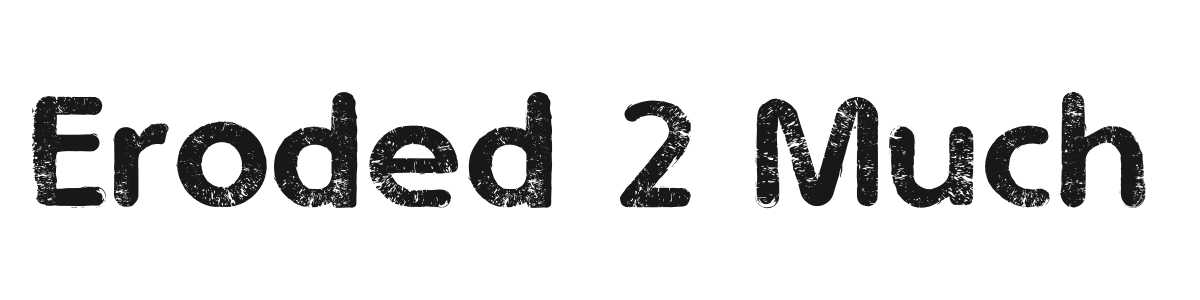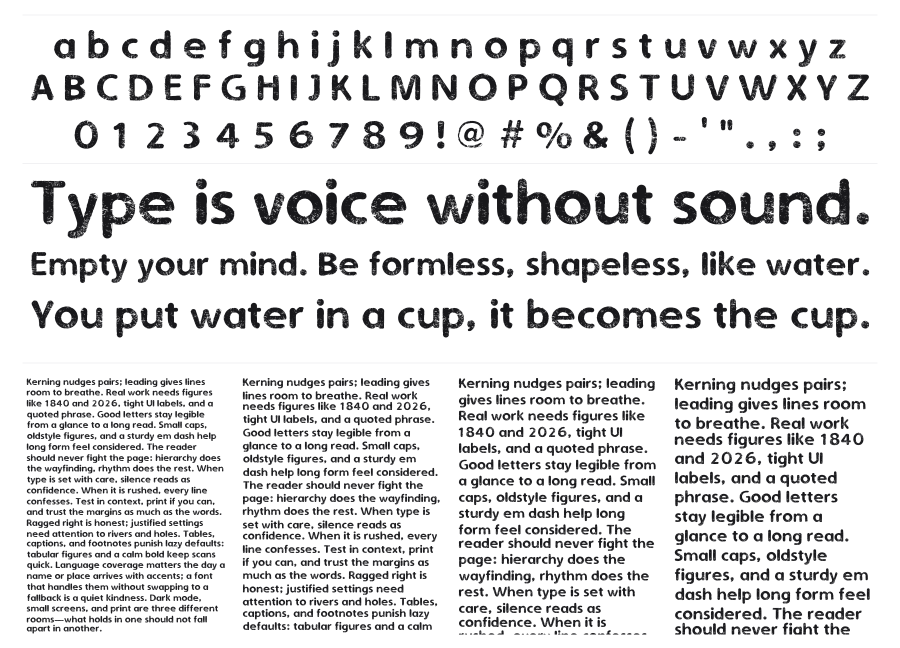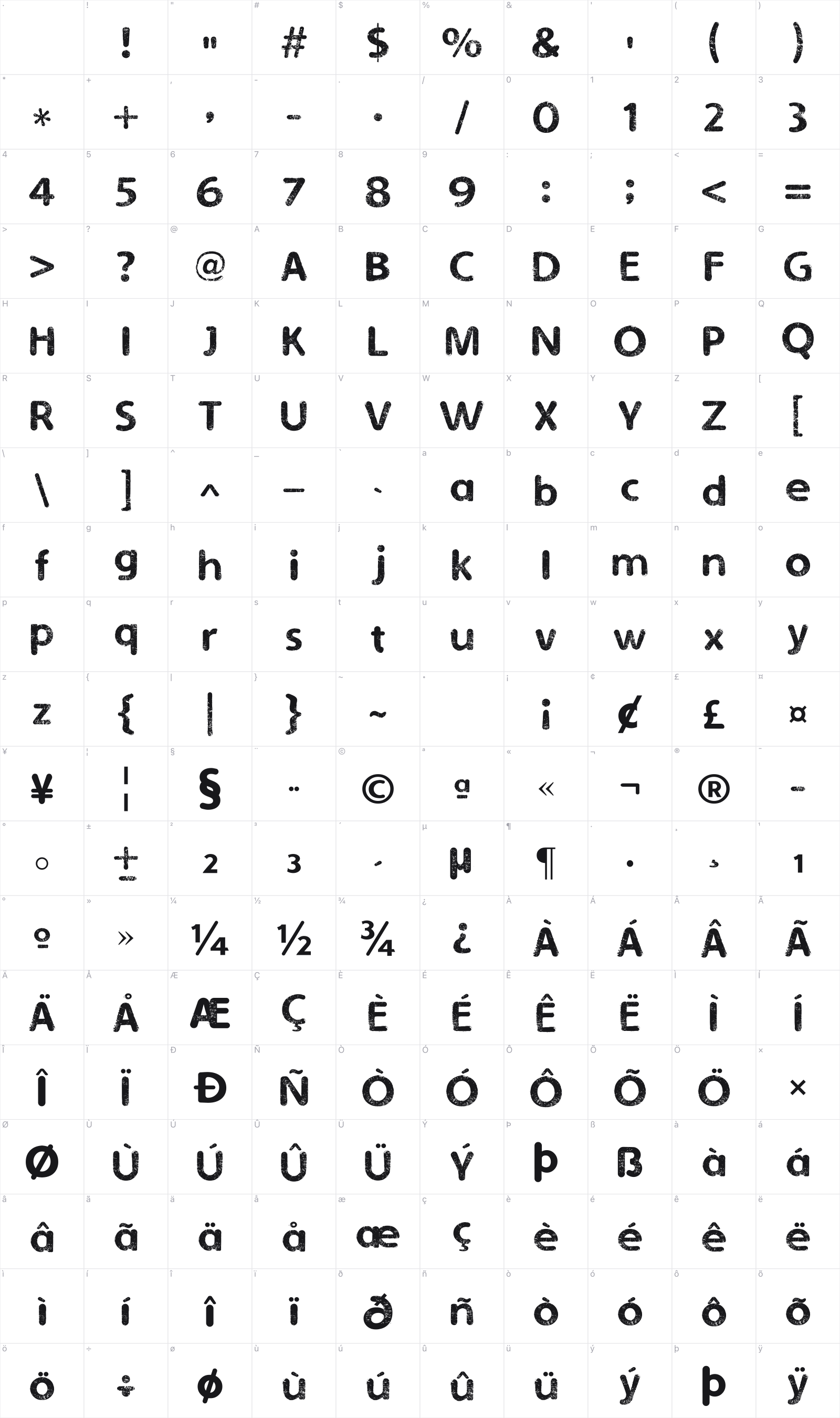
Eroded 2 Much
Eroded 2 Much is a heavy rounded sans-serif with an aggressive distress texture that simulates eroded ink or a well-worn stamp. The base design is wide, friendly, and bold, but the surface erosion gives every character a rough, lived-in quality. It works anywhere a design needs casual weight with a grungy handmade edge.